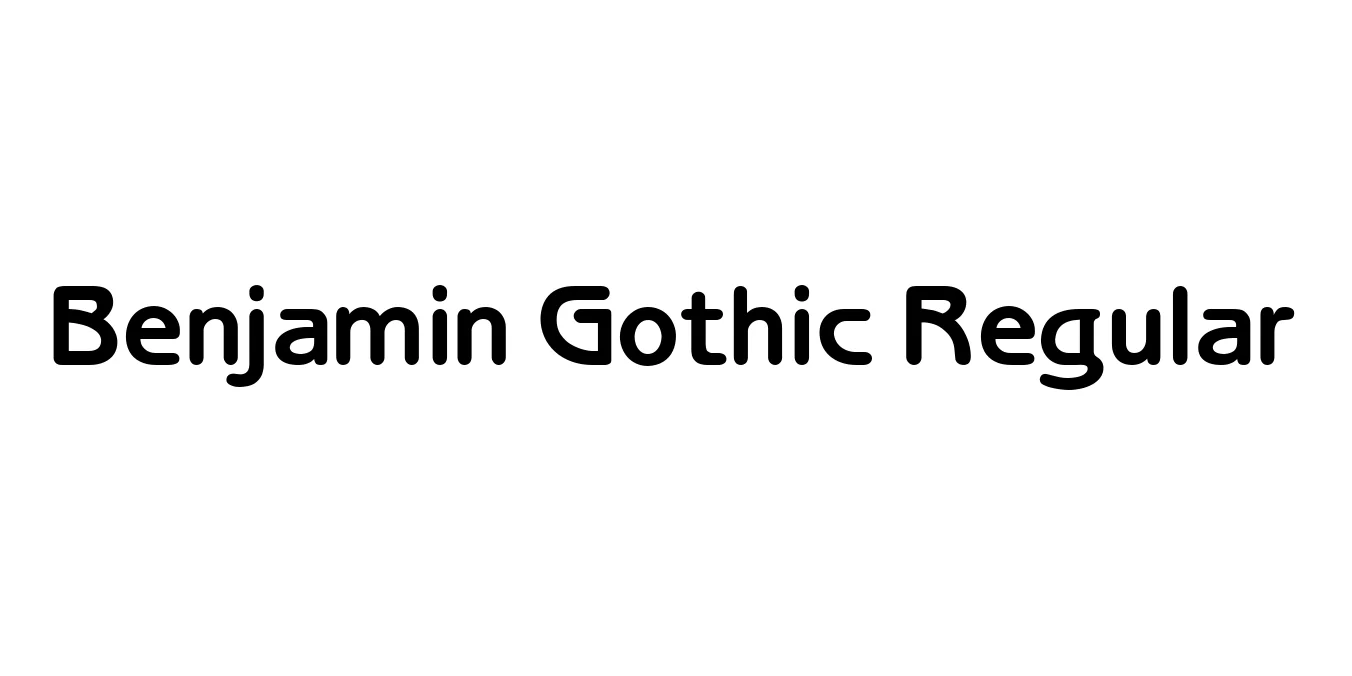
Benjamin Gothic Regular
Designed by Michael Neugebauer
Benjamin Gothic Regular is a versatile sans-serif typeface that captures the essence of early 20th-century industrial design. It was crafted with a focus on legibility and balanced proportions, making it a staple for both display and body text applications. The font's clean lines and subtle geometric nuances reflect a blend of classic gothic styles and modern functionalism, providing a robust aesthetic for contemporary creators.
Originally designed to offer a reliable alternative to standard grotesques, this typeface has evolved into a popular choice for corporate branding and editorial layouts. Its regular weight provides a neutral yet confident tone, ensuring that information is conveyed clearly across various digital and print media platforms. It remains a timeless choice for designers seeking a sophisticated, understated aesthetic that bridges the gap between traditional craftsmanship and modern utility.
Benjamin Gothic Regular Best Uses
Ideal for corporate logos and professional brand identities requiring a clean look.
Excellent for body text in magazines, journals, and long-form digital articles.
Highly readable for user interfaces, navigation menus, and website content.
Clear and impactful for both high-end print and digital advertising campaigns.